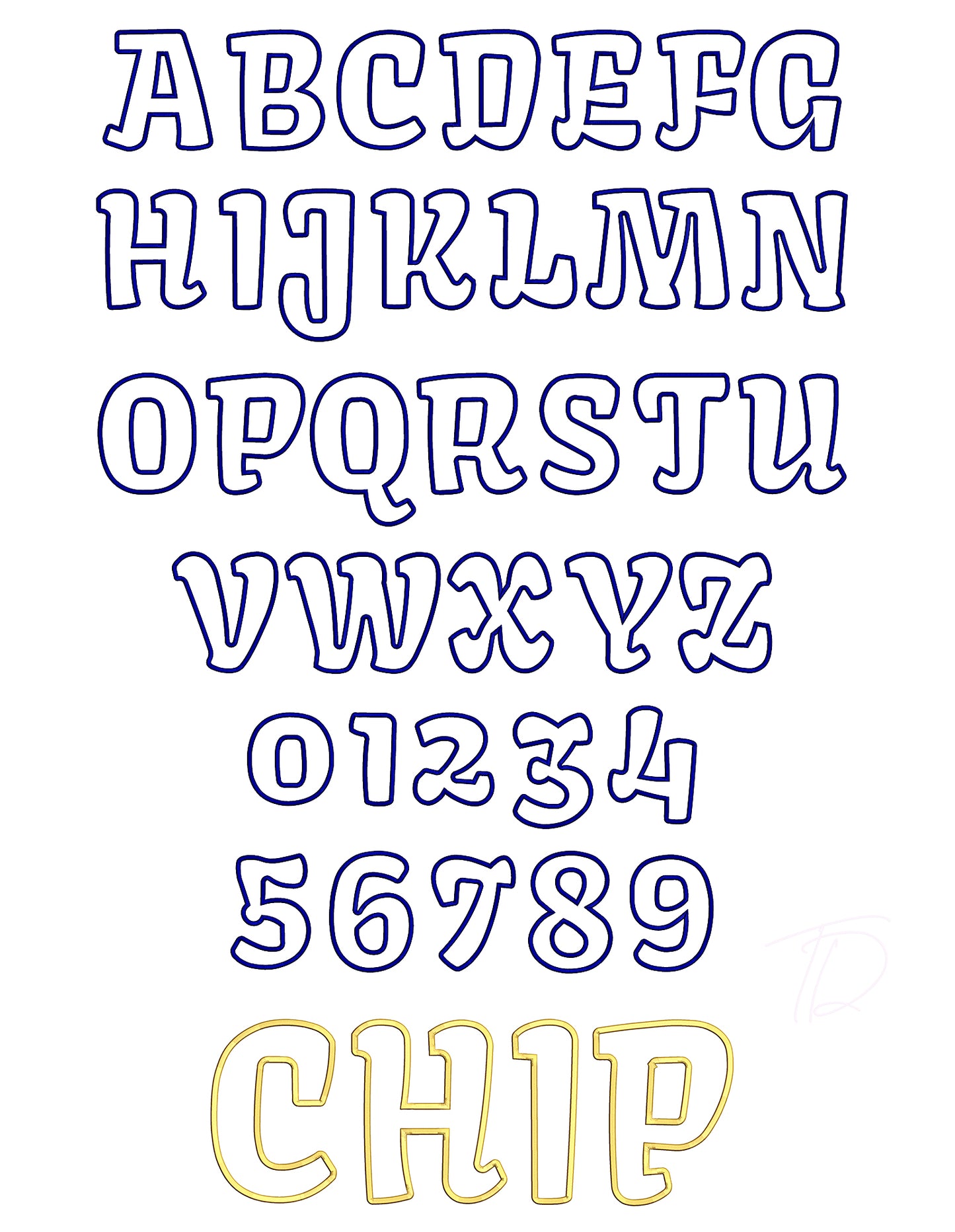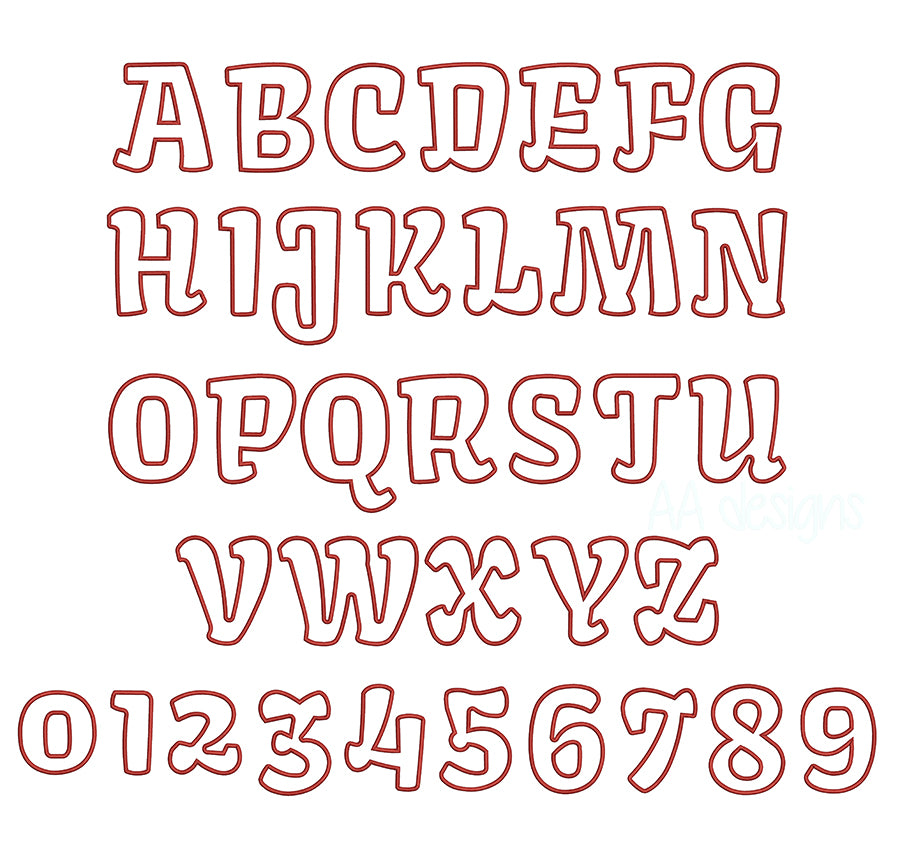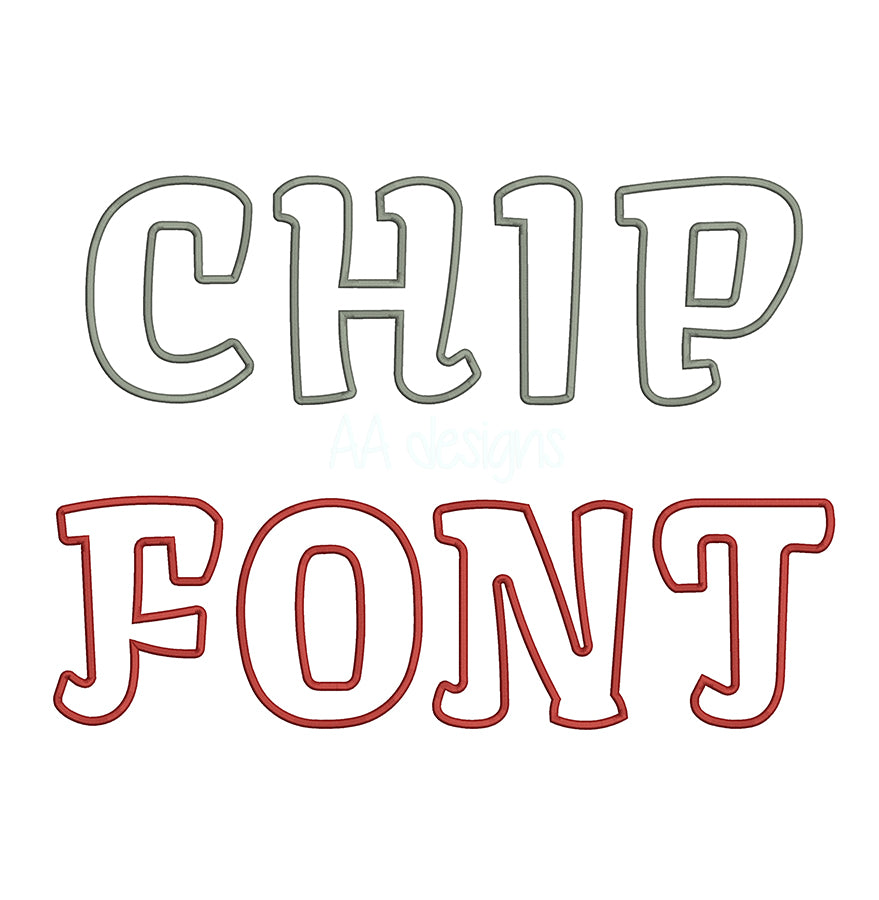
Crispy Chips Applique Embroidery Font
Add a crunch of creativity to your embroidery projects with our Crispy Chips Applique Embroidery Font — a fun, quirky alphabet with a snack-inspired personality, built for applique machine embroidery. Bold, textured, and utterly irresistible, this font is a treat for foodies, novelty lovers, and anyone who appreciates a little flavor in their stitchwork.
- Applique-style construction for a colorful, dimensional finish with lower stitch count
- Playful, chunky letterforms with a crispy, snack-inspired character
Whether you're personalizing a foodie gift, creating fun kitchen accessories, or adding a playful twist to everyday items, this font is the snack that stitches back.